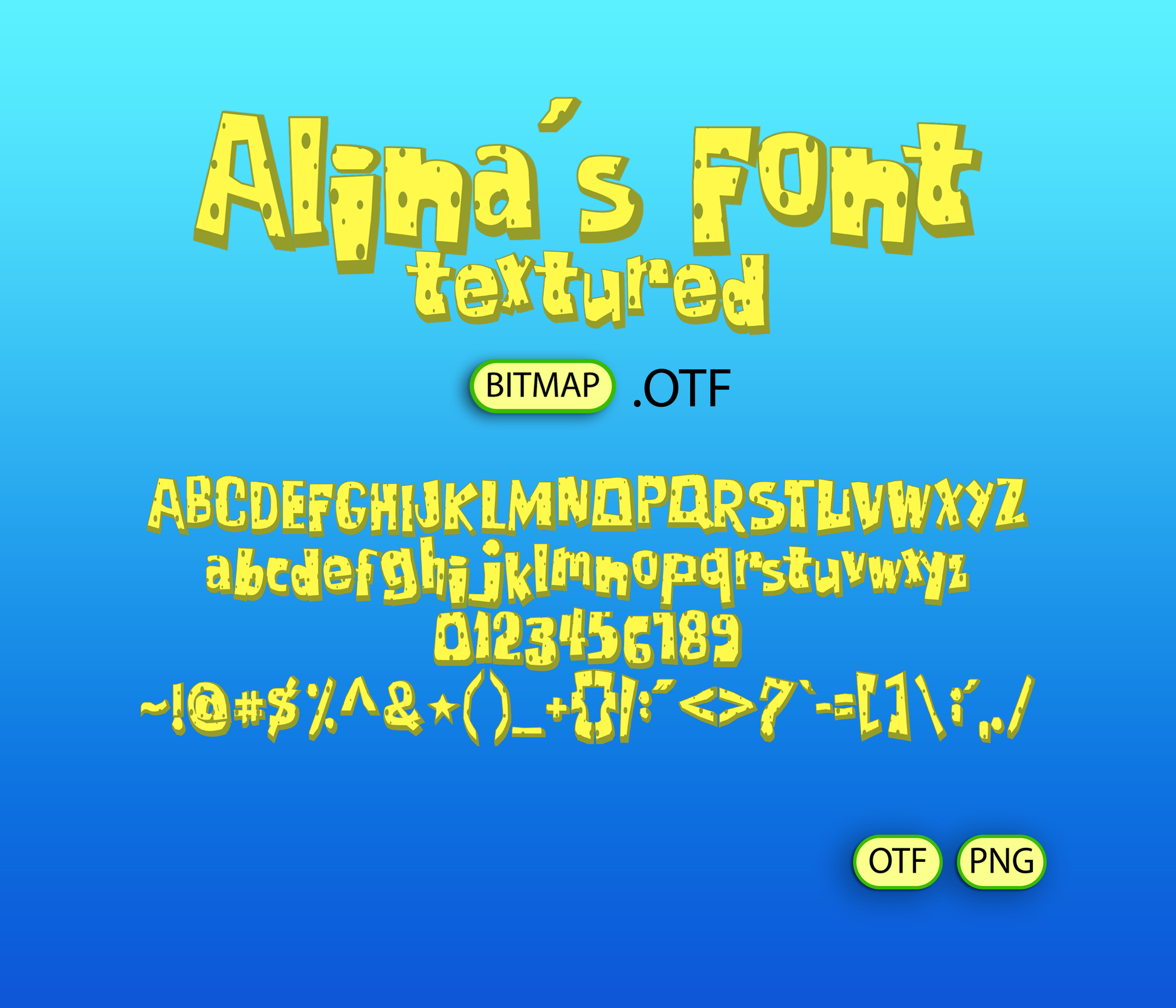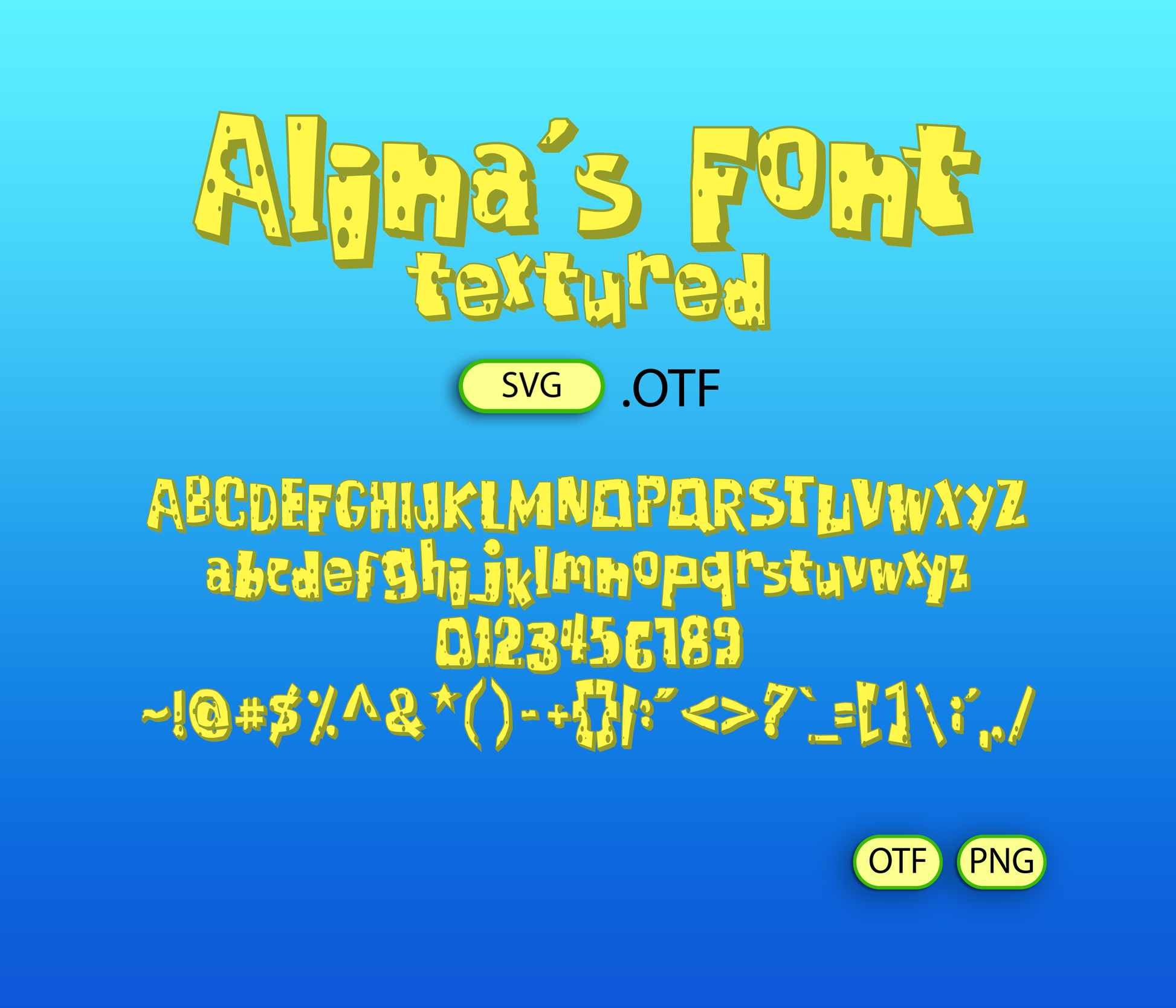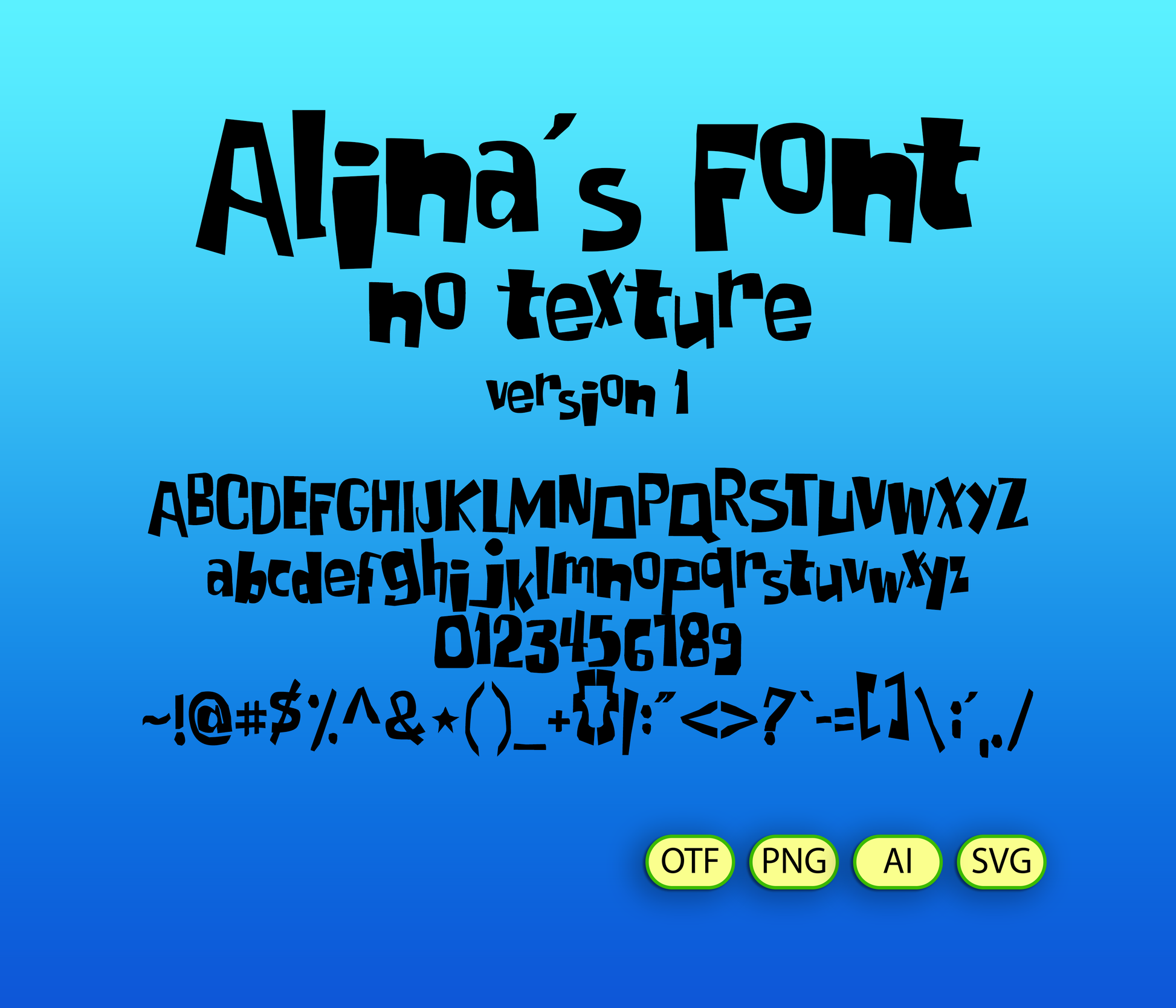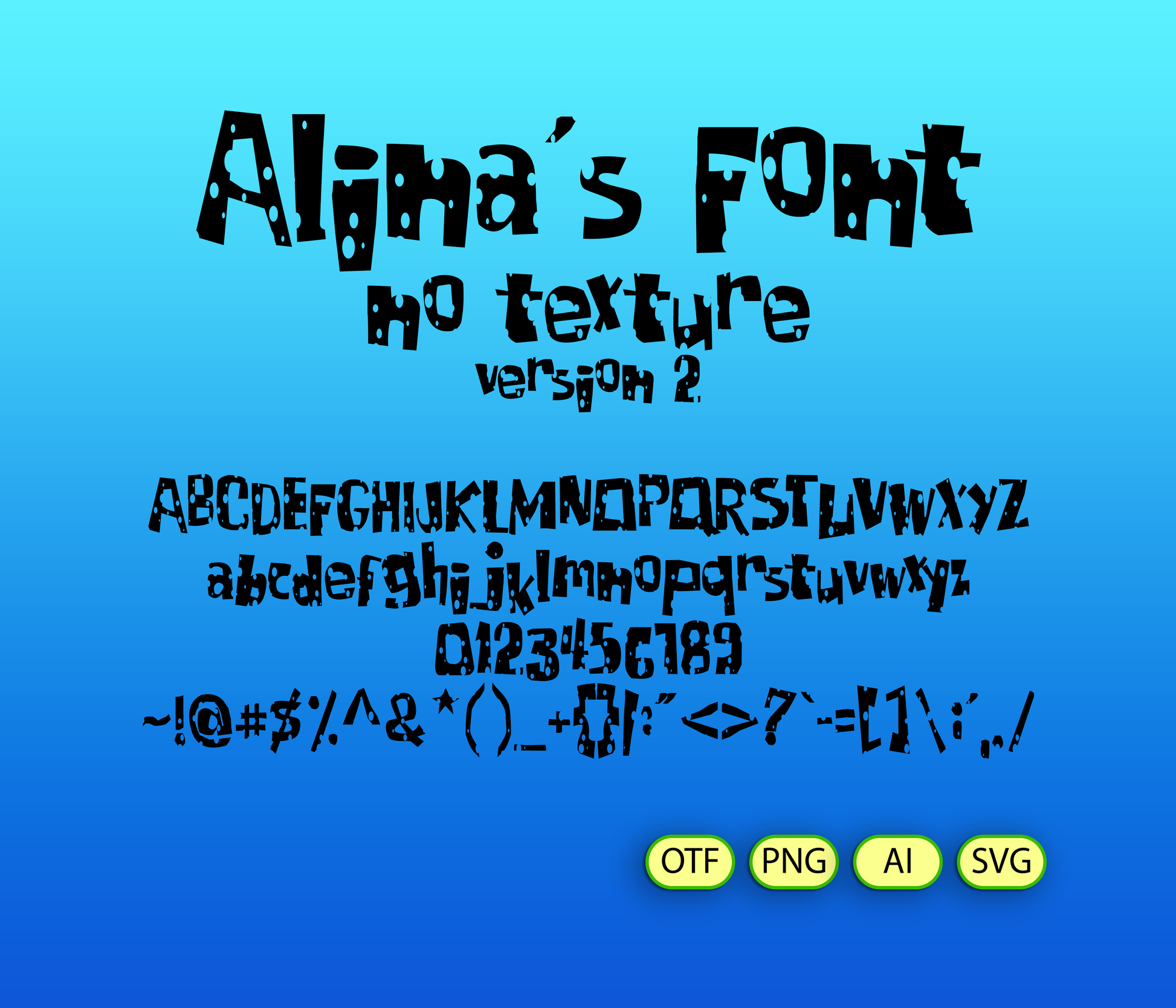
Sea Sponge Font Textured
Sea Sponge Font Textured: An Underwater Typography Splash
Dive into the colorful world of a beloved underwater cartoon character with the Sea Sponge Textured Font. This font encapsulates the playful and quirky spirit of a cheerful sea sponge and his underwater adventures. Each character in this textured font is crafted with elements reminiscent of a bubbly personality and the whimsical underwater world he inhabits.
The Sea Sponge Textured Font is a treasure trove for creative artisans, ideal for crafting joyful cake toppers, lively birthday invitations, or playful t-shirt designs. This font is a gateway to infusing your projects with cheerful energy and whimsy that is synonymous with underwater cartoon fun.
With its buoyant characters and lighthearted aesthetics, this font isn't just a collection of letters; it's a narrative tool ready to turn every creative project into an undersea adventure. As you craft your projects with the Sea Sponge Textured Font, each stroke brings joy and whimsy to life, making every creation a delightful dive into a playful spirit.
Whether you're a fan of underwater cartoons or simply love whimsical designs, this font offers a unique way to bring a touch of undersea magic to your creative projects.